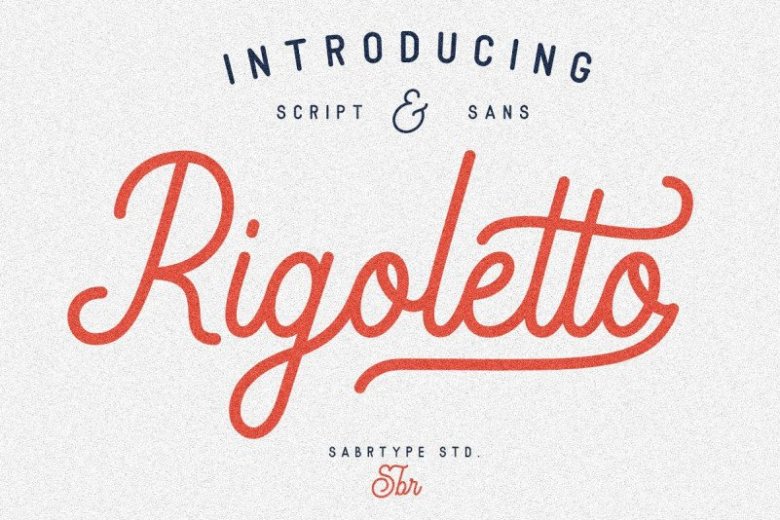
Rigoletto Script Font
This is a new monoline script font, this font will gives you a simple and beauty touch for many projects. Introducing Rigoletto Script Font. This font has a neat monoline style with Sans Serif fonts that support the style of the monoline script. Overall this font will produce clean, expensive and elegant design.
Rigoletto has 70 Alternates that supports decorating your design. It’s very well suited for logotypes, wedding invitations, Vintage labels, romantic cards and others. Also it has many alternate glyphs so you can choose beside the simple characters or give them a little swashes to give a decorative touch for your designs.